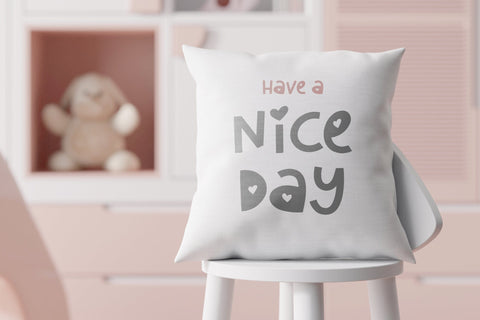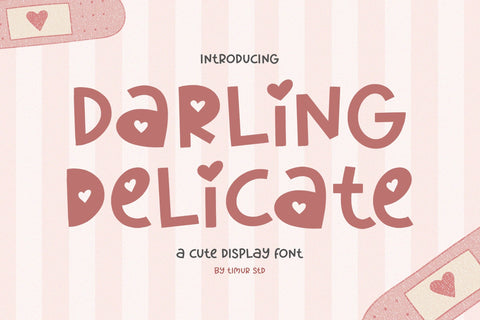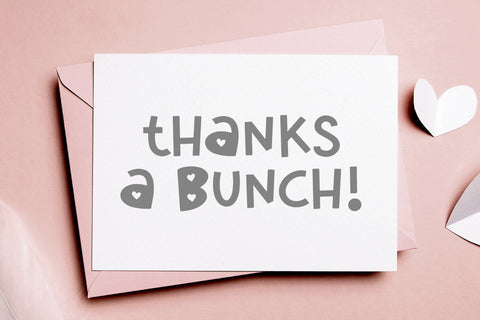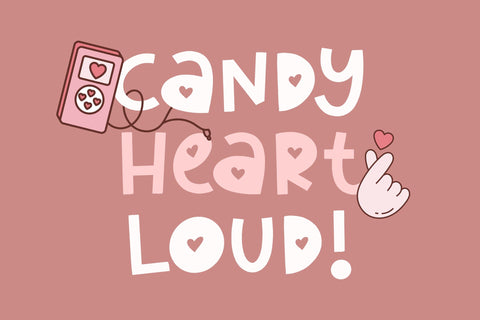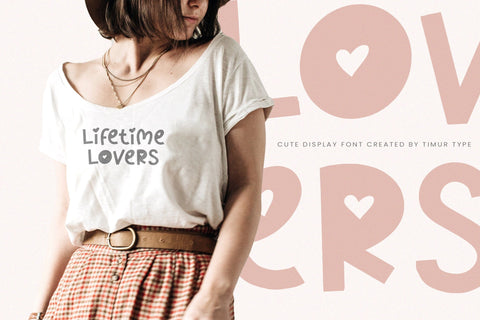
Darling Delicate - Cute Display Font
Darling Delicate is a Cute Display Font
This font embodies a charming and adorable aesthetic that adds a playful touch to any design. These fonts feature delightful and whimsical letterforms with cute elements such as rounded edges, sweet symbols, and endearing embellishments. With their cheerful and lovable style, cute display fonts are perfect for creating eye-catching headings, logos, and titles that evoke a sense of warmth and friendliness. Whether used in children's books, branding projects, or social media graphics, these fonts bring a sense of joy and innocence to the overall design. Embrace the cuteness and create designs that are irresistibly charming and inviting with a cute display font.